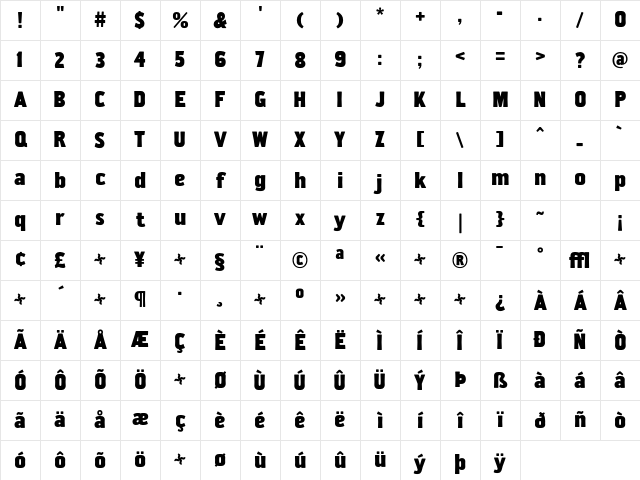
Hamilton Bold
Style: Bold
Copyright: Copr.1993 Thomas A. Rickner. Designed by Thomas A. Rickner
Design Context for Hamilton
Hamilton is a composed and adaptable typeface that performs quietly and consistently across a wide range of design contexts. Its bold stroke weight gives it real presence on the page.